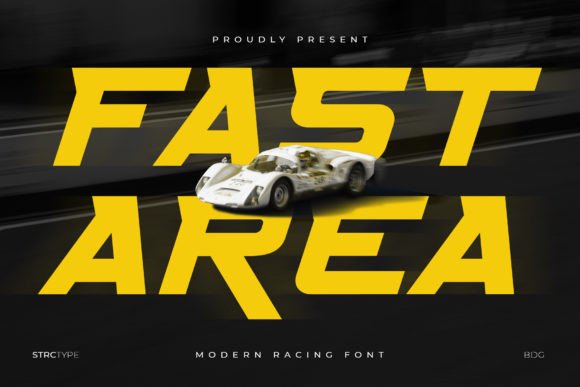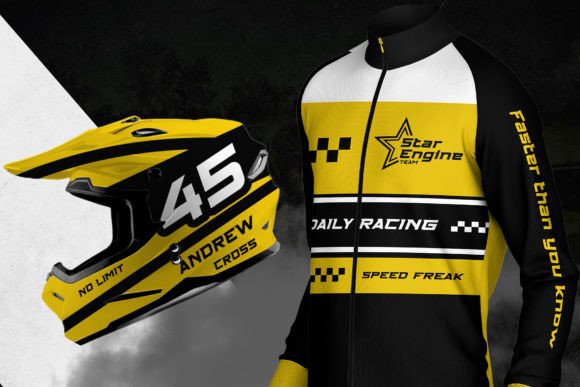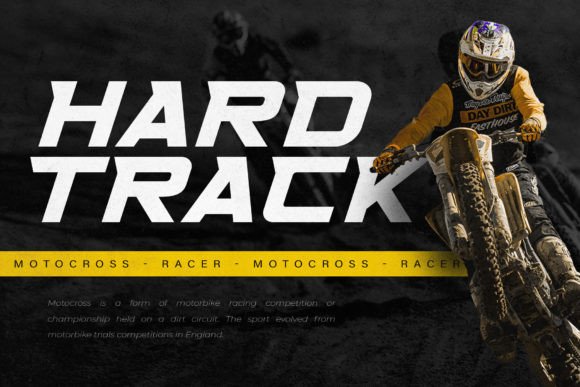
Fast Area Font
Fast Area, an impressive sports-inspired font that encapsulates the spirit and power of speed. Infused with a dynamic wide-italic structure, arranged in unique modern cutouts, and finished with a dynamic slant, this font speaks velocity. Whether you need to punctuate your race car titles, add flair to running event posters, brand an adrenaline-inducing cycling race, or create gripping game logos, Fast Area is your go-to solution. The beauty of Fast Area is its ready-to-use perfection. Say goodbye to endless tweaks – its design is finessed to perfection, making it an excellent choice for racing designs, games, automotive brands, and logos. It’s offered in both regular and italic styles, accompanied by popular symbols, serving a versatile typographic partner for your design needs.
Fast Area up its engines with unbeatable legibility and commanding size, sparking a potent aura of speed and power. Crafted to be swift and dynamic, Fast Area introduces a fresh font design that you simply cannot ignore. Square corners lend it a bold, quick look and shouts modernity and futurism.